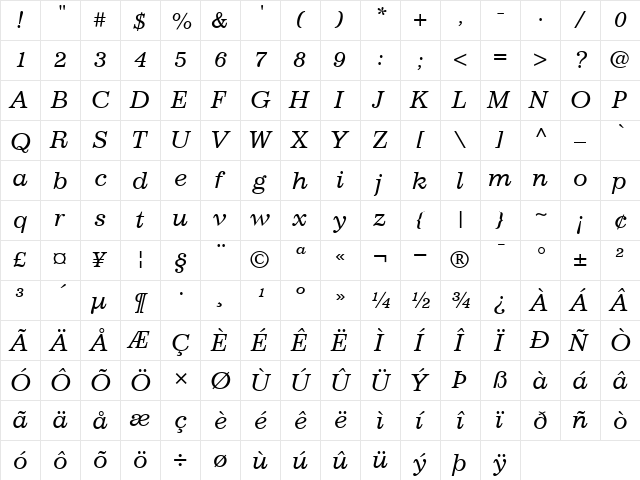
12Impressum**13134 RomanItalic
Design Context for 12Impressum**13134 Typeface
12Impressum**13134 takes a measured approach to typography — its balanced proportions and neutral character make it a reliable workhorse for both digital and print work. The dynamic lean of this cut emphasises speed and emphasis in any layout.
Pro Tip: Use 12Impressum**13134 for emphasis, pull quotes, and subheadings where its slanted energy can add rhythm to the layout.